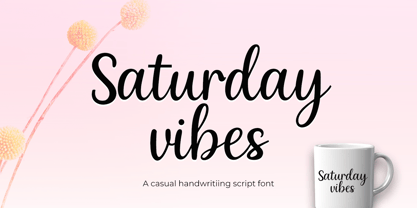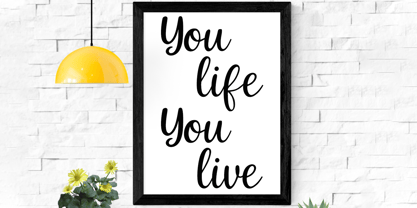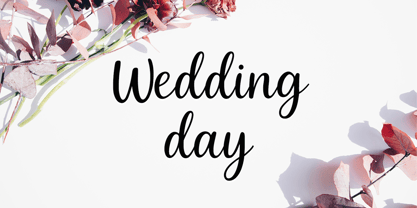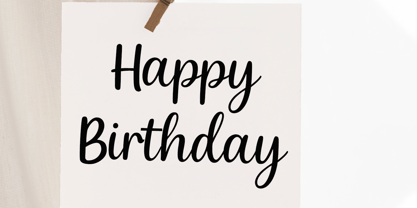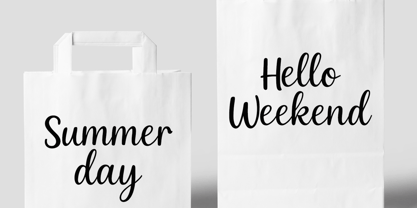
Saturday vibes
von Cocodesign
Die Schriftfamilie Saturday vibes wurde von Muhammad Zaini entworfen und von Cocodesign veröffentlicht. Saturday vibes enthält 1 Stile. Mehr über diese Familie
Saturday Vibes is a casual and elegant script font with a handwritten feel. Perfect for quotes, greeting cards, t-shirts, and planners. Its smooth curves and playful style make it ideal for any creative project that needs a relaxed and friendly touch.
Designer: Muhammad Zaini
Foundry: Cocodesign